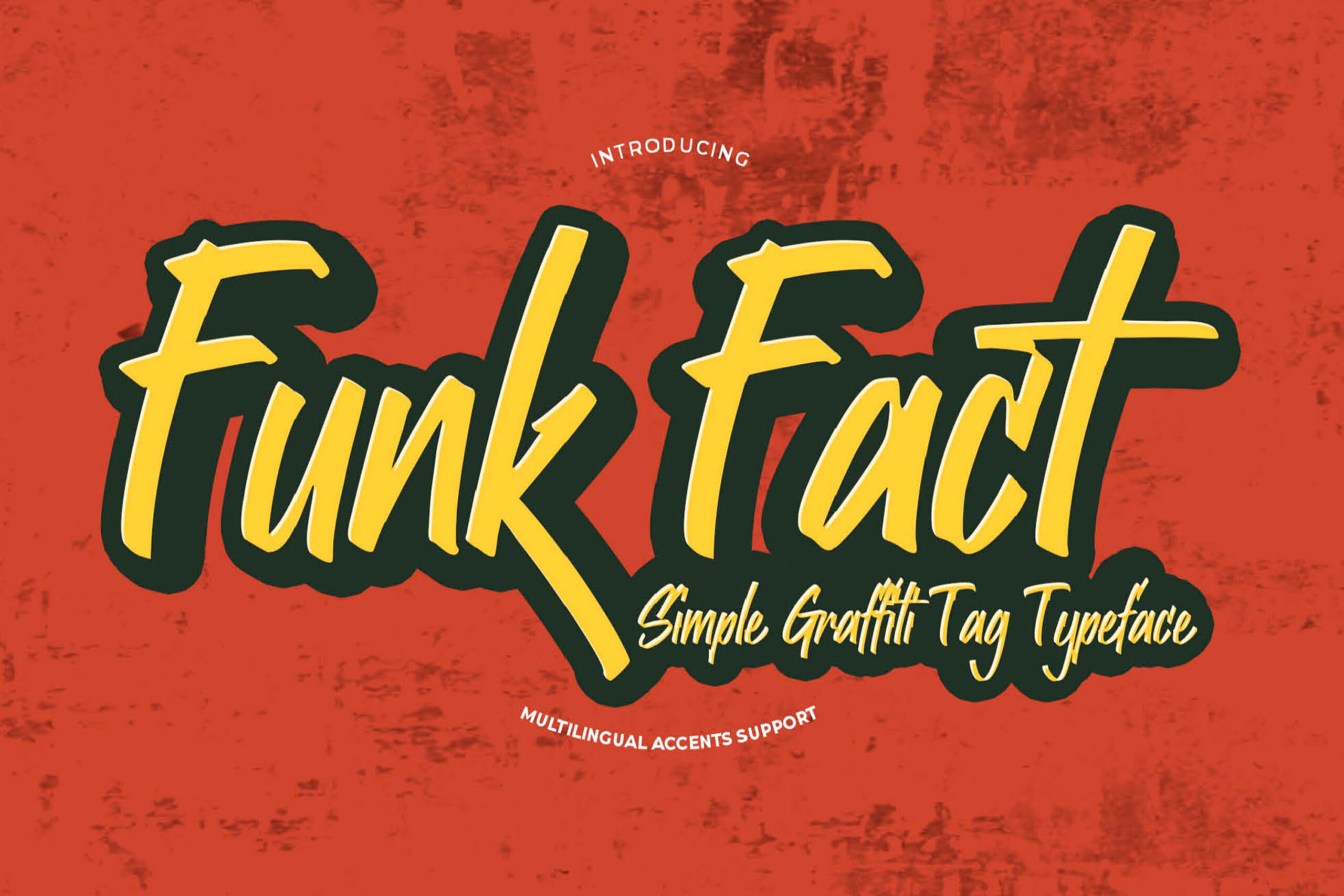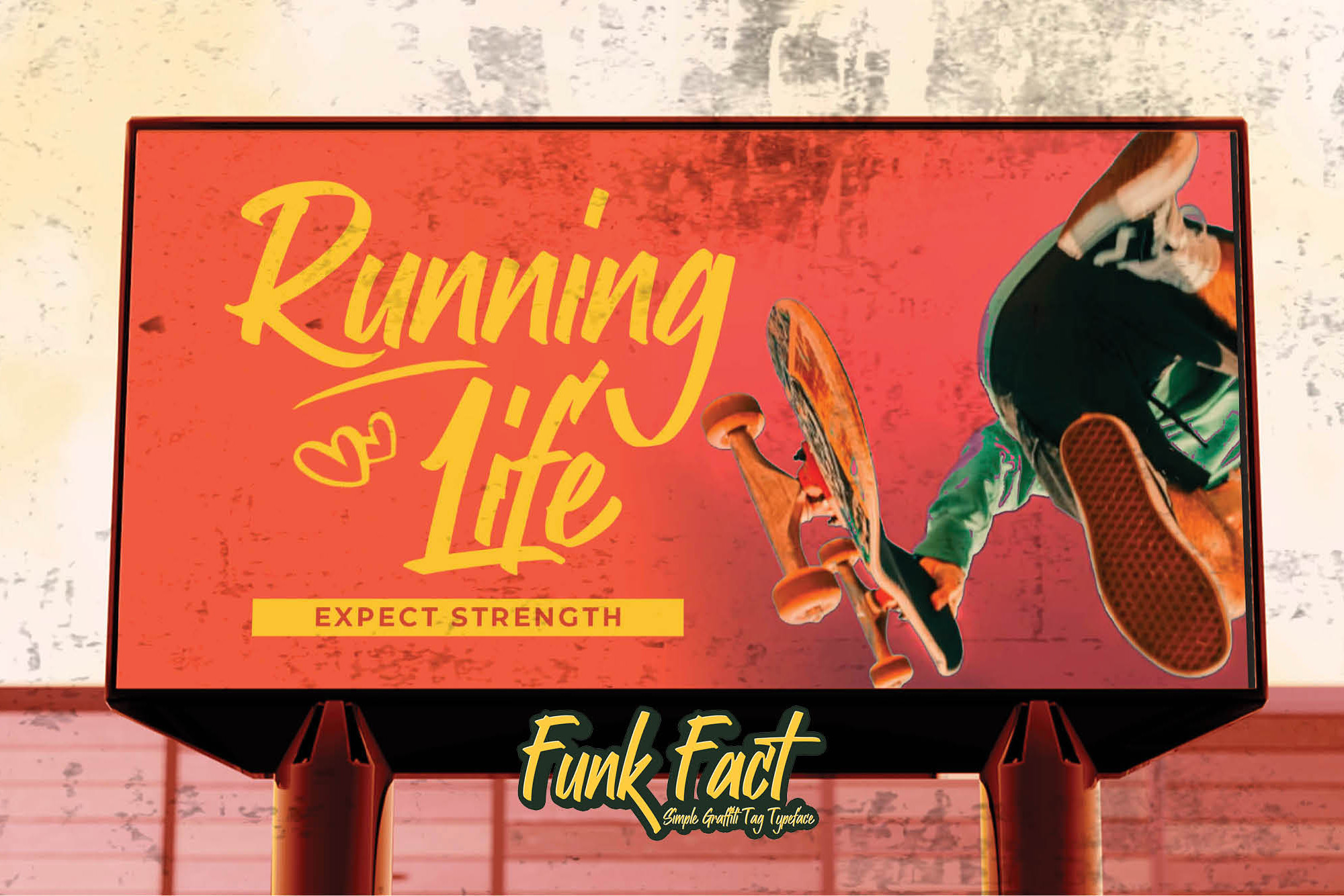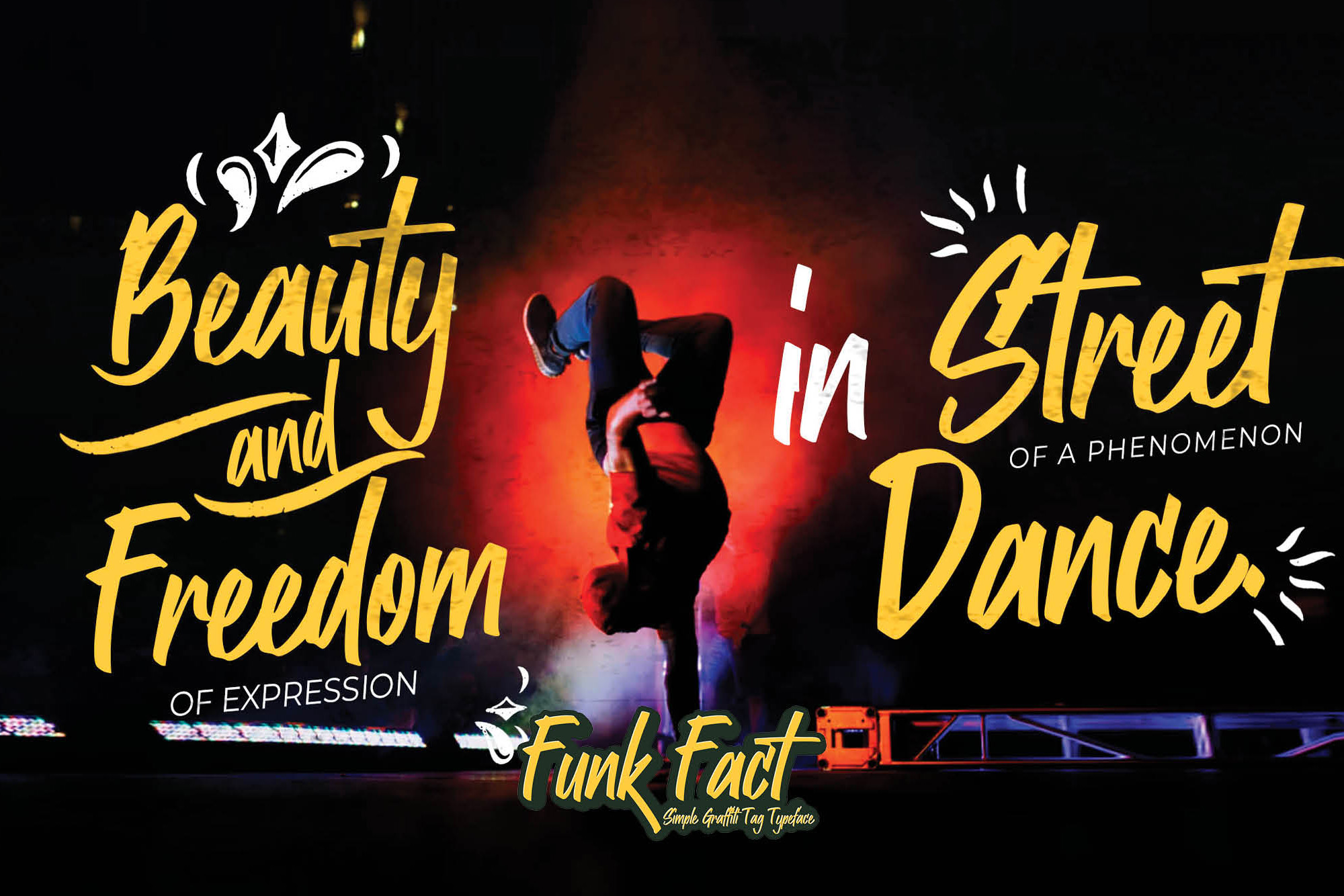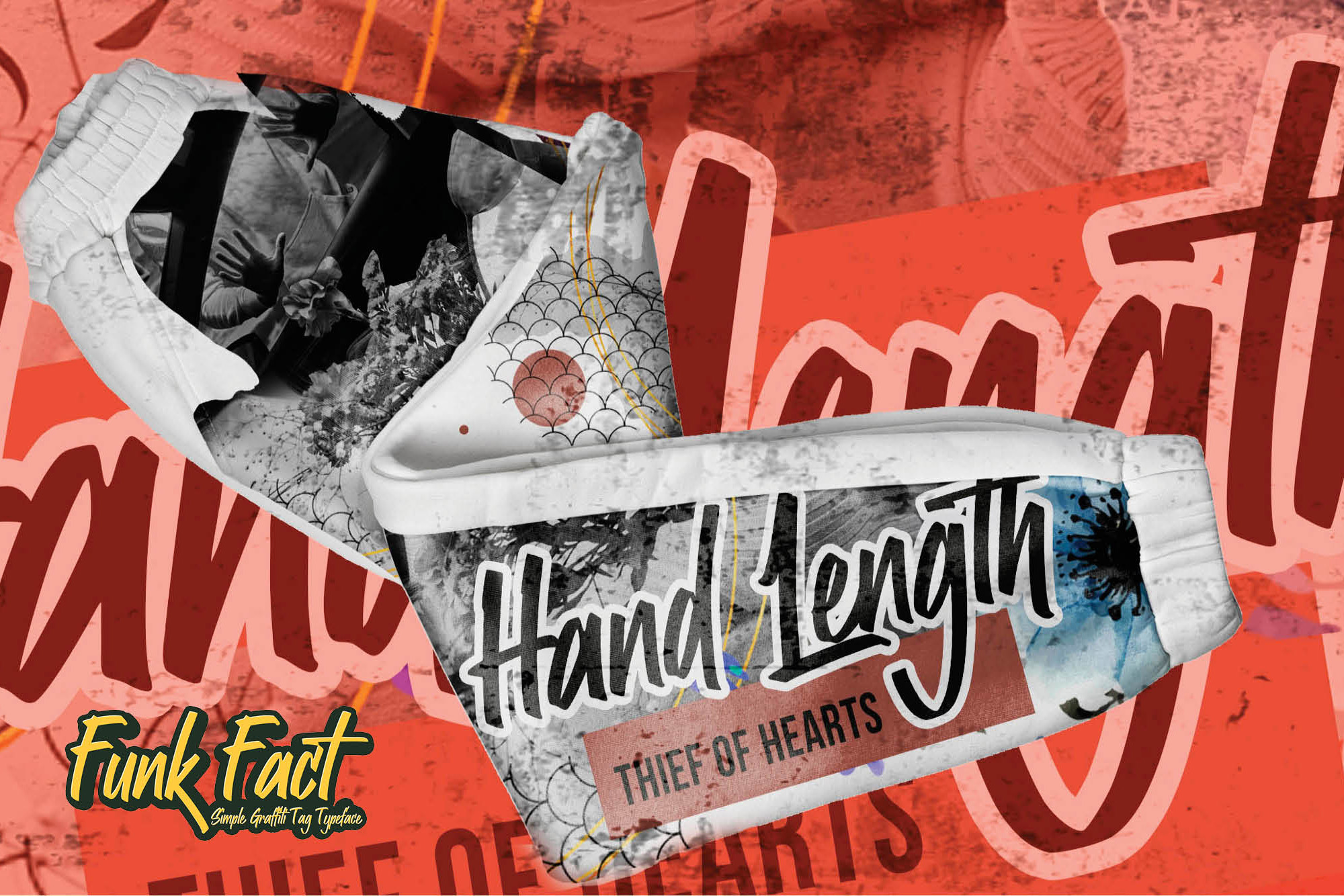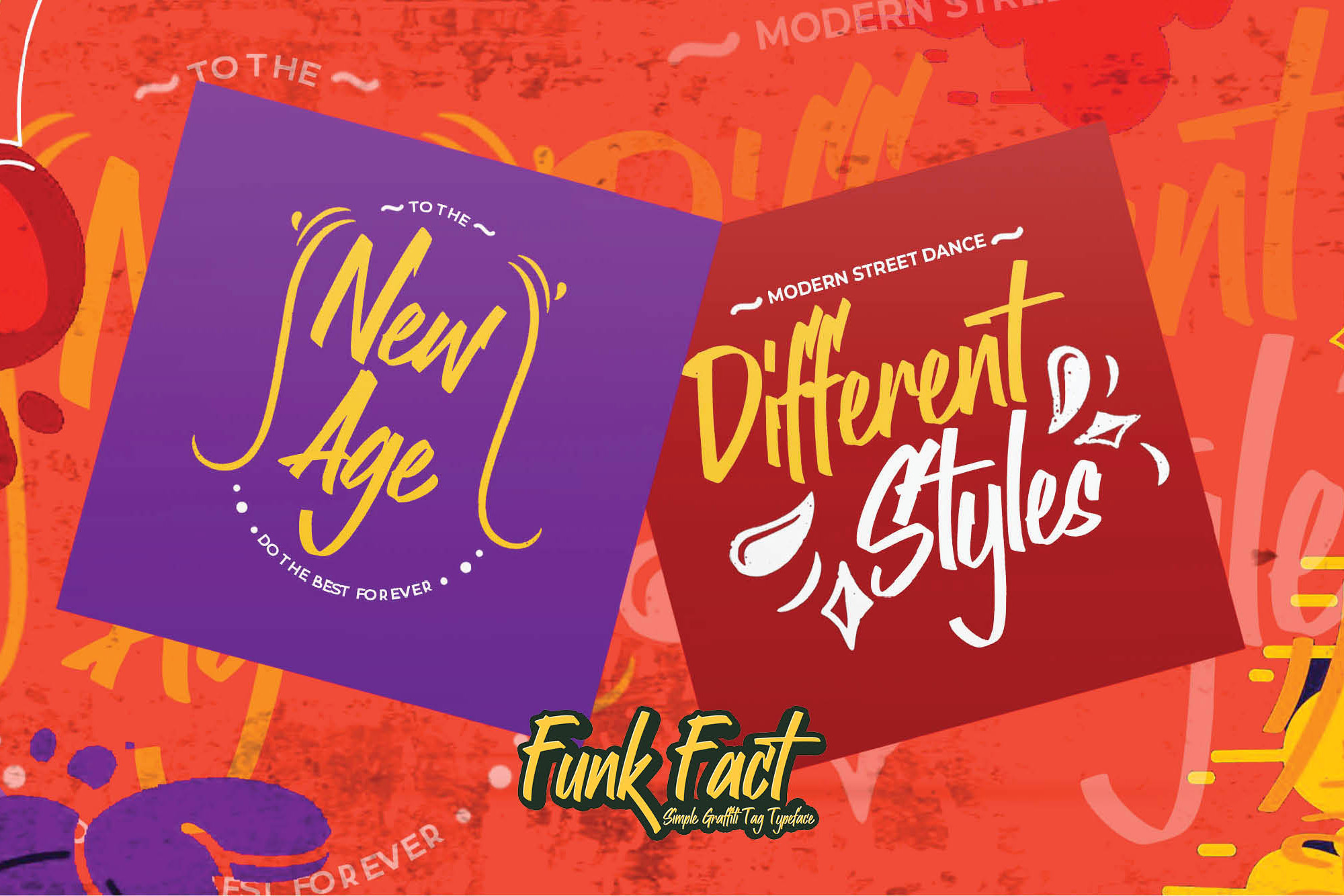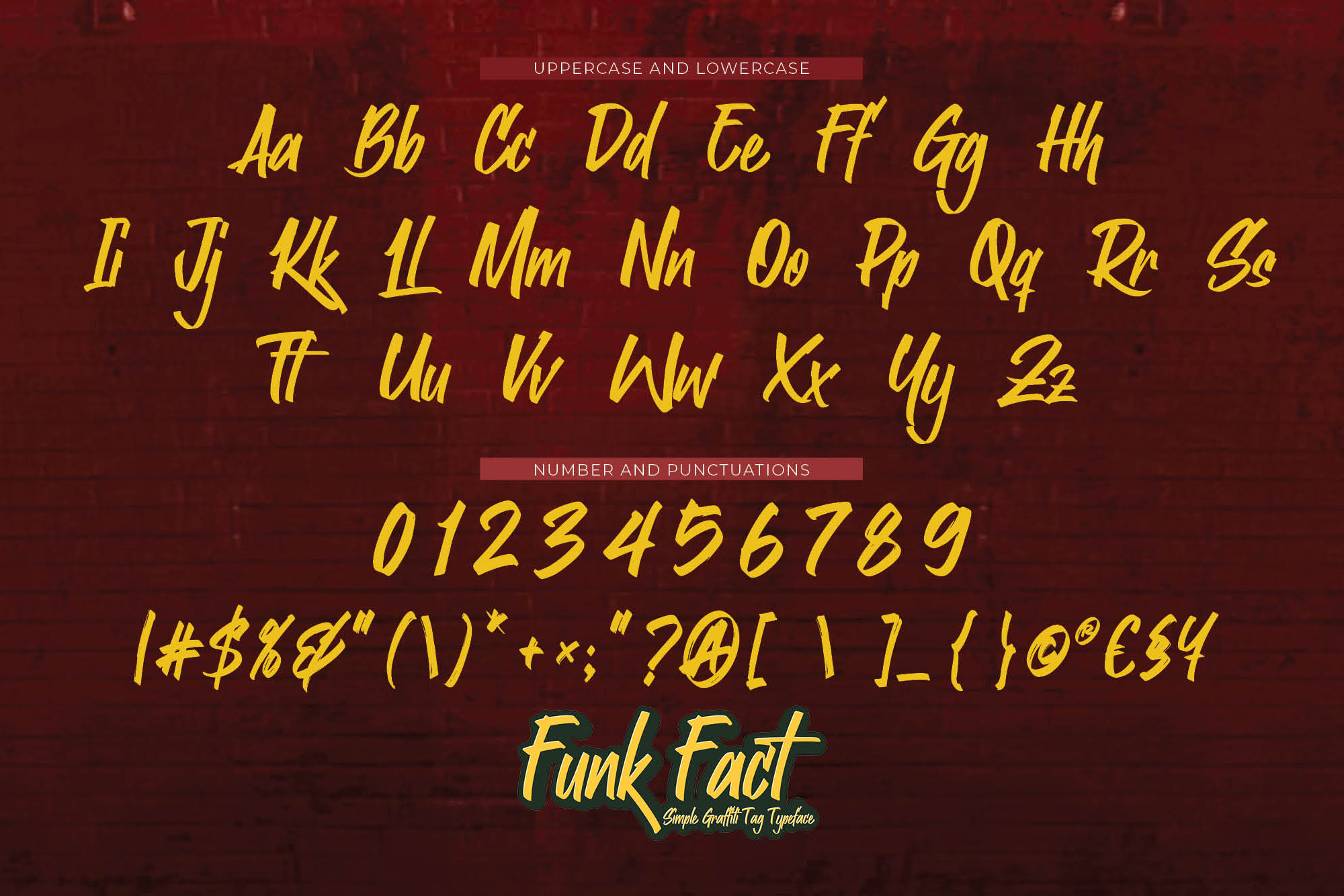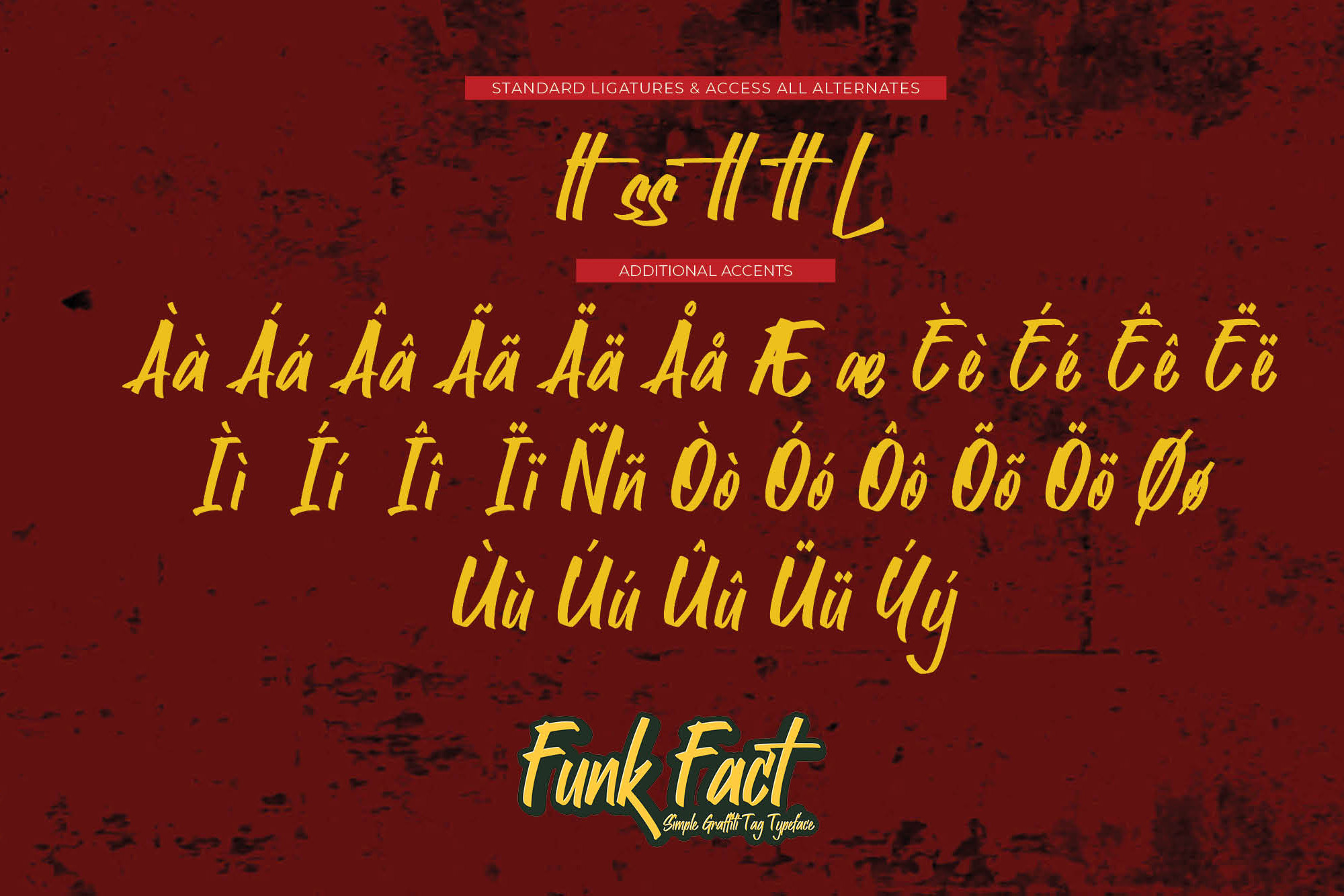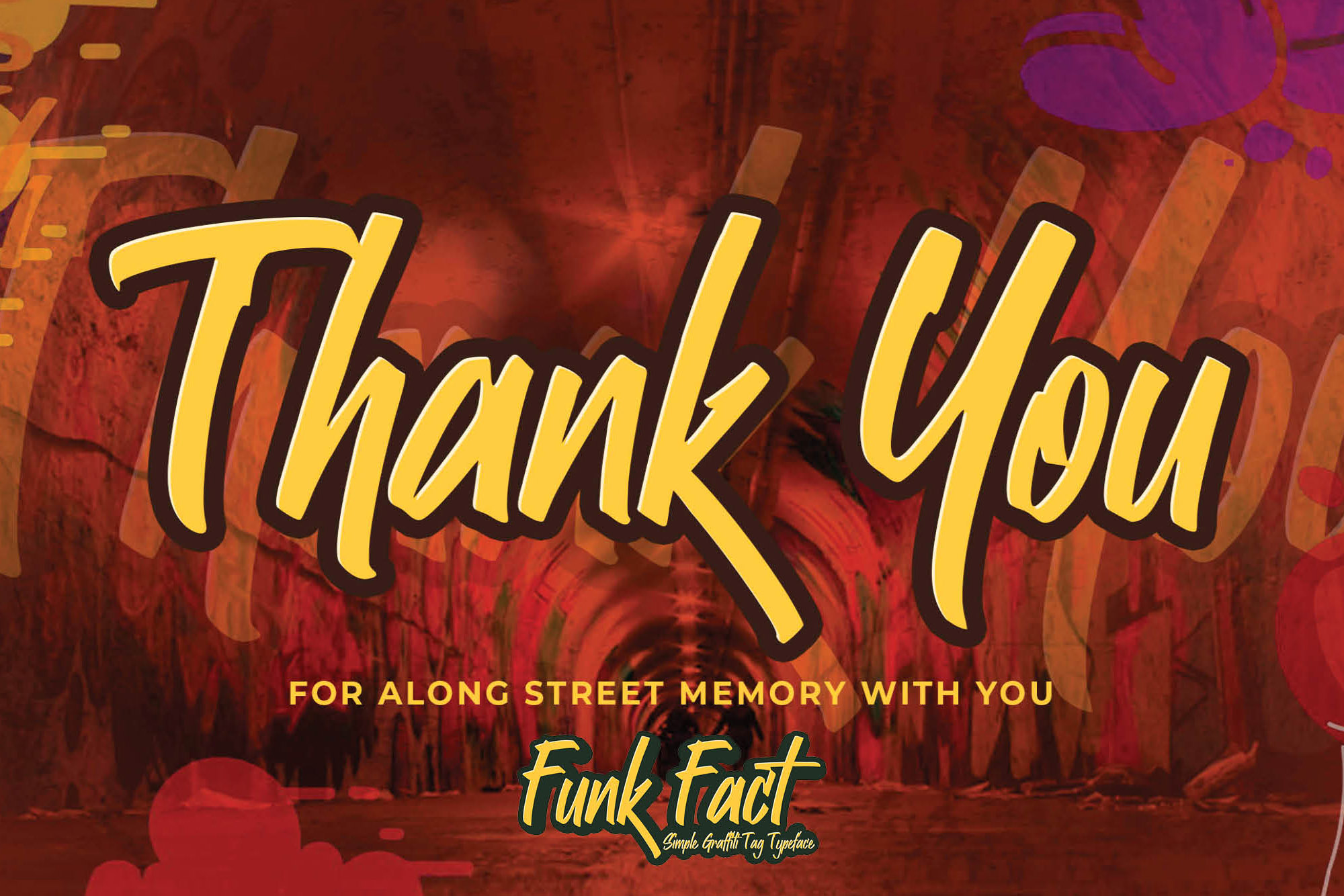
Funk Fact – Simple Graffiti Tag Typeface, modern style and dramatic movement that is written casually and quickly.
The best for labels, poster, project designs look ,authentic and cool . It’s perfect for labels, quotes, posters, DIY projects, branding, packaging, greeting cards, websites, photography overlays, signs, scrapbooking, tags and so much more! That is why Funk Fact has a textured, and unique characteristic more natural look. You can activate Ligatures OpenType panel.